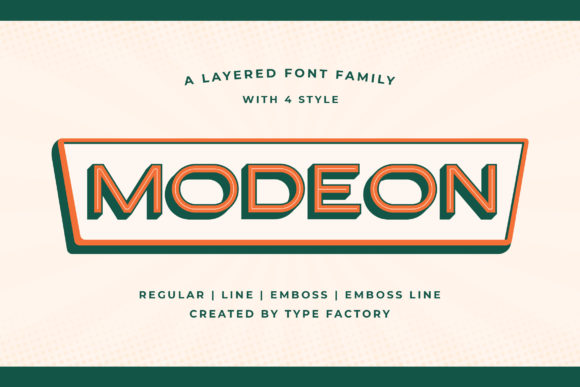
Dive into the captivating world of Modeon, a font that's a sight to behold. Its sans serif design exudes a sense of sophistication and style, meticulously crafted by the renowned TypeFactory. Step into a realm where your designs take center stage, brimming with a youthful exuberance that captivates and inspires.
Modeon is more than just a font; it's a gateway to unlocking your creative potential. Its versatility knows no bounds, seamlessly adapting to your every design whim. Whether you're crafting eye-catching logos that leave an unforgettable impression, developing bold branding that speaks volumes, or creating trendy t-shirts that turn heads, Modeon is your trusty companion.
Envision your designs adorned with Modeon's graceful curves and sharp angles. Picture your logos standing out from the crowd, radiating an aura of professionalism and finesse. Imagine your branding materials leaping off the page, captivating audiences with their vibrant energy and polished aesthetic. Envisage your t-shirts becoming the epitome of cool, emblazoned with Modeon's youthful spirit and infectious charm.
With Modeon by your side, you'll discover a world of creative possibilities. Its intuitive nature makes it a dream to work with, allowing your imagination to soar to new heights. Unleash your inner artist and let Modeon guide you towards design masterpieces that resonate with your audience.
Join the ranks of creative visionaries who have embraced Modeon's allure. Let its timeless beauty elevate your designs to unprecedented levels of sophistication and style. Immerse yourself in a world of endless possibilities, where Modeon empowers you to craft designs that speak to the hearts and minds of your audience.